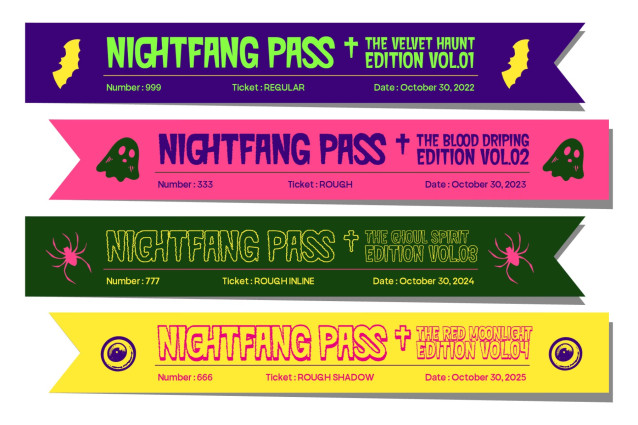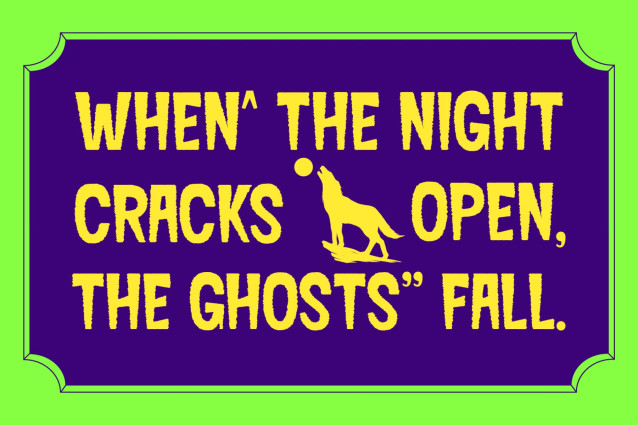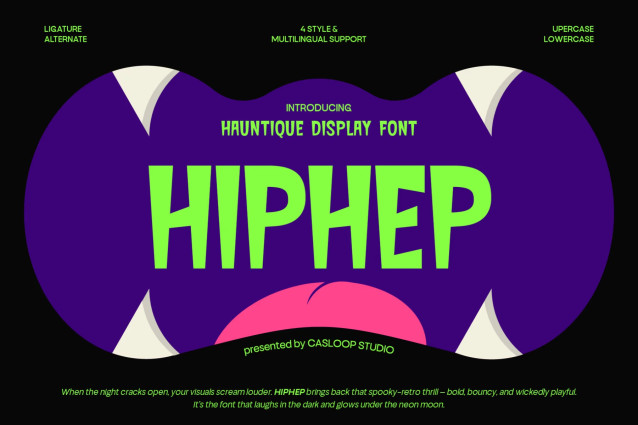
HIPHEP is a haunted bold display font that brings spooky charm and monster energy into your designs. With rough textures, expressive angles, and quirky imperfections, HIPHEP feels alive like a trick-or-treat spirit dancing under the moonlight. It’s bold, loud, and just the right amount of creepy, perfect for Halloween visuals, horror branding, and anything that loves a little chaos.
Each letter in HIPHEP carries attitude especially the R, P, and K designed to look like cheeky little creatures. The font’s experimental vibe makes it stand out for projects that crave character and emotion, from Halloween posters to haunted café branding. It’s not just a font; it’s a spooky persona that grins back at you.